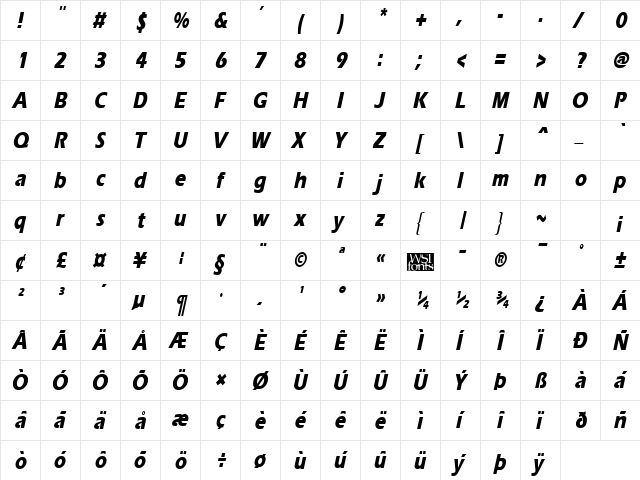
ErgoeExtraboldCond Italic Font Preview
Design Context for ErgoeExtraboldCond Typeface
ErgoeExtraboldCond offers clean, dependable letterforms without strong stylistic allegiance, making it a practical choice for designers who need flexibility. Its italic angle brings a sense of urgency and motion to the letterforms. Its bold stroke weight gives it real presence on the page. Its narrow stance lets it pack a punch even in space-constrained designs.
Pro Tip: Use ErgoeExtraboldCond for emphasis, pull quotes, and subheadings where its slanted energy can add rhythm to the layout.